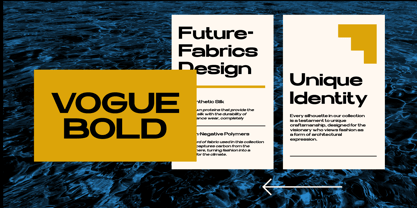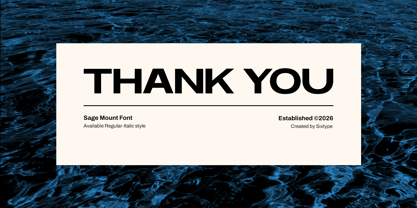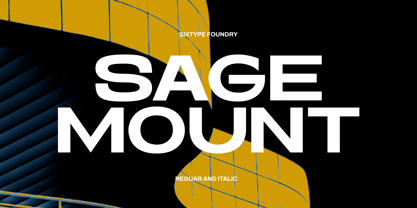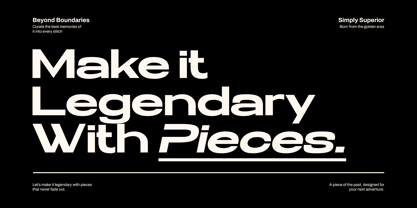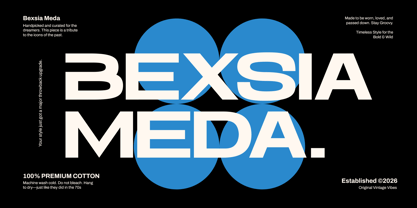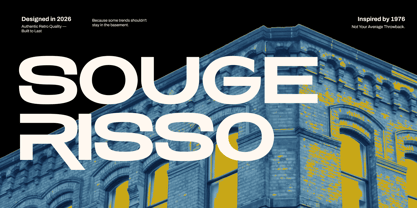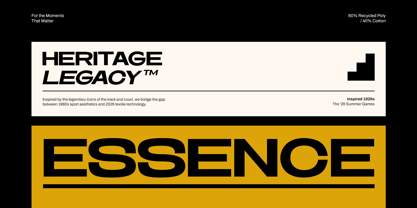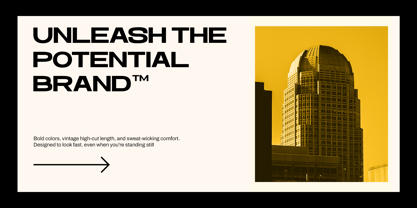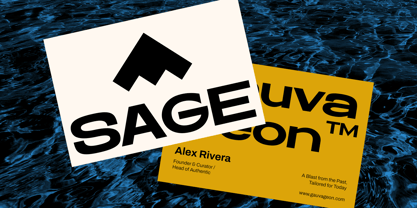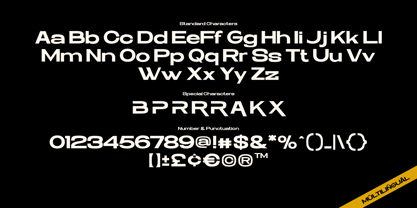
SageMount
por Sixtype Foundry
La familia tipográfica SageMount y publicada por Sixtype Foundry. SageMount contiene 2 estilos y opciones de paquete familiar. Más información sobre esta familia
Sage Mount is a bold geometric sans serif typeface designed for modern branding, editorial design, advertising, technology, sports, and visual identity projects. It features strong proportions, clean curves, and confident letterforms, offering a powerful presence while ensuring excellent readability in both large headlines and supporting text. Its modern industrial character blends precision with versatility, making it an ideal choice for logos, packaging, posters, fashion campaigns, corporate identities, web design, and premium marketing materials. With its sleek aesthetic, architectural influence, and forward-thinking style, Sage Mount enhances clarity, impact, and sophistication in any creative endeavor.